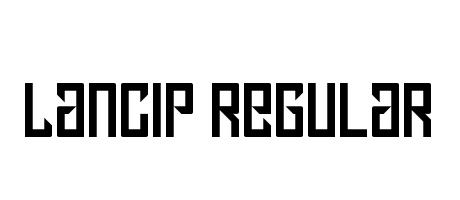
Lancip
By Subarkah Siwitomo
Lancip Regular is a bold, geometric sans-serif typeface. Its strong, blocky letterforms create a sharp, almost robotic feel. The consistent stroke weight and squared-off terminals convey a sense of order and precision, lending itself well to titles and headings requiring a modern, assertive presence. The overall aesthetic is both minimalist and impactful.